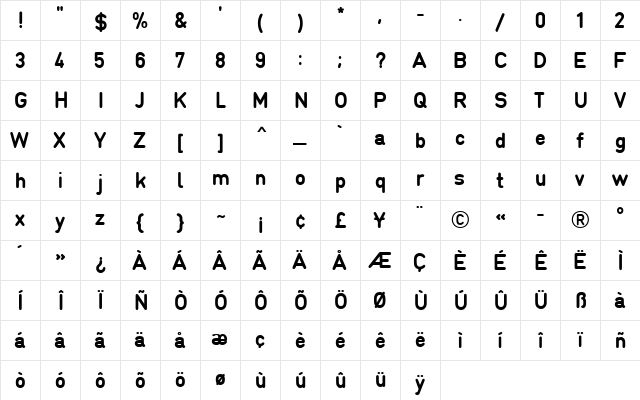
Normalise Din MN Regular
Design Context for Normalise Din MN Typeface
Normalise Din MN offers clean, dependable letterforms without strong stylistic allegiance, making it a practical choice for designers who need flexibility.